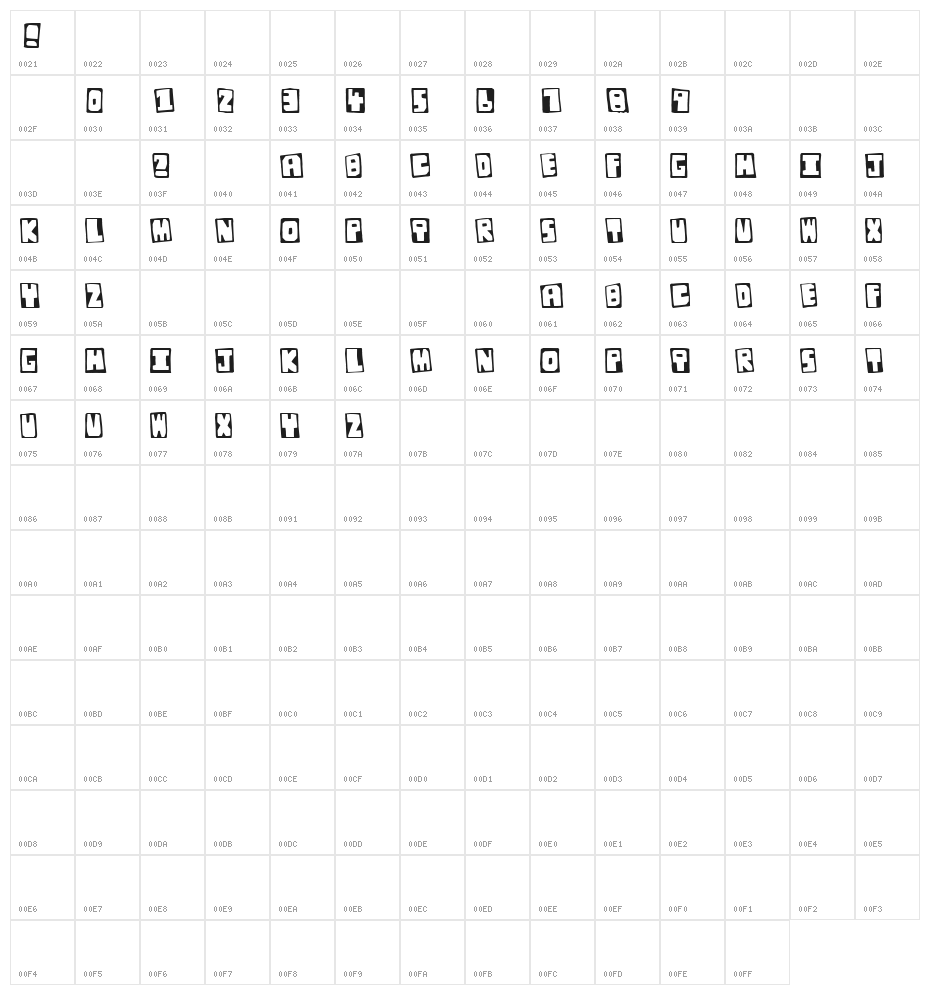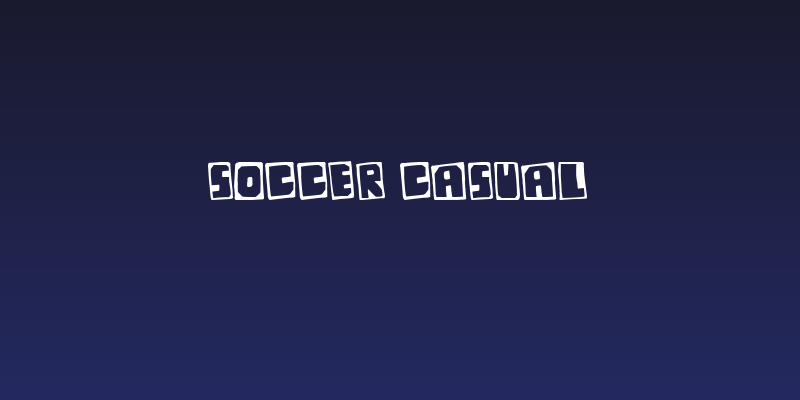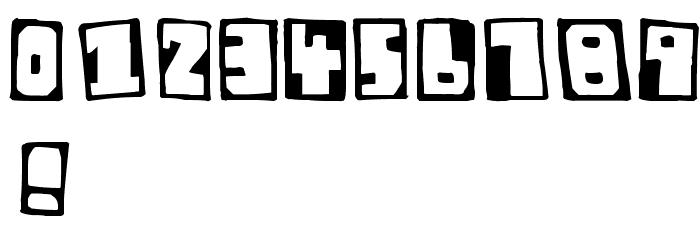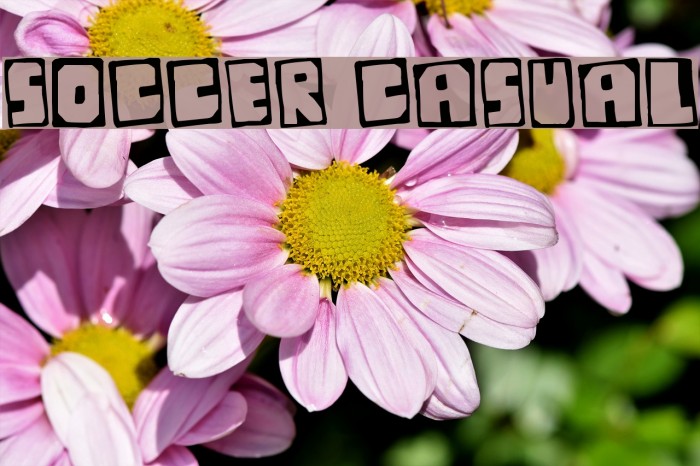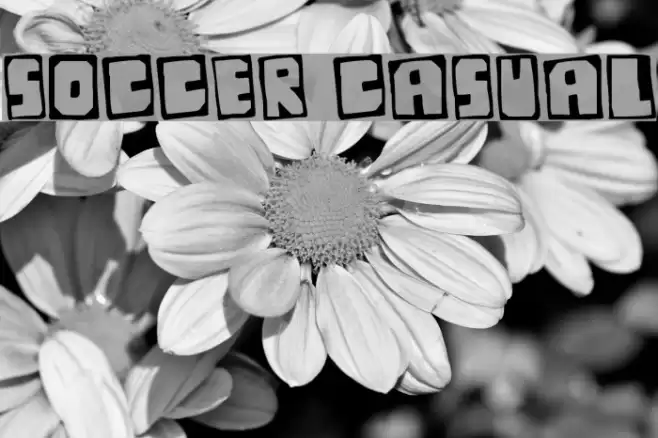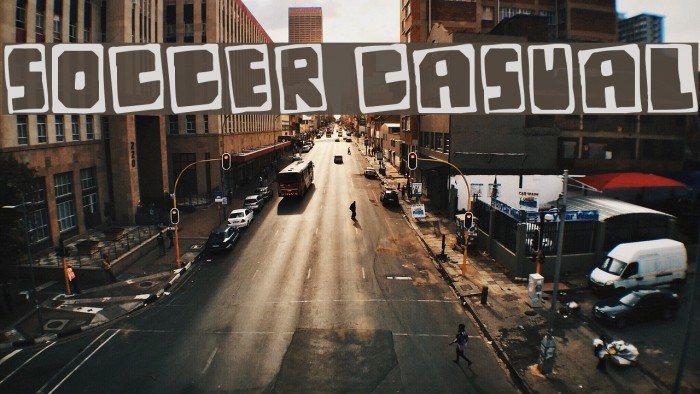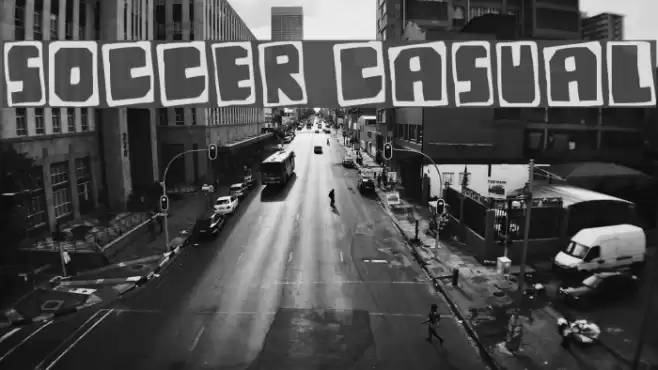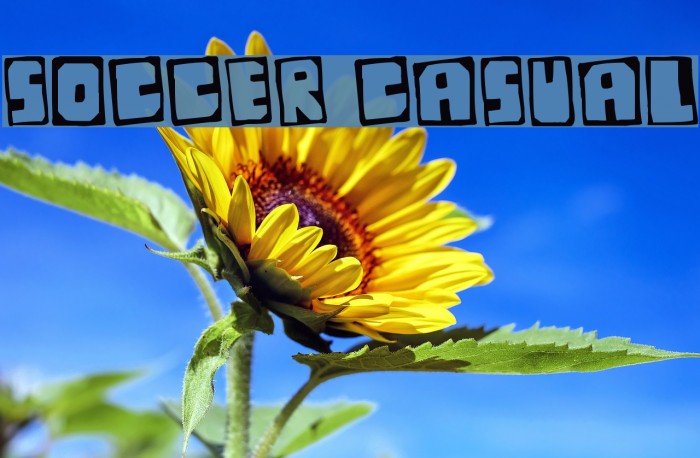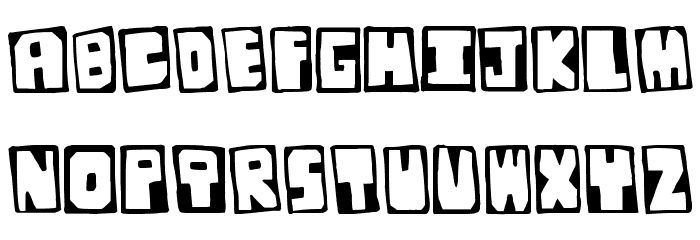
Soccer Casual Font
Soccer Casual Description
This font features a playful and bold style with each character enclosed in a square-like shape, giving it a casual and dynamic appearance. The letters are uppercase and lowercase, with a consistent thickness that creates a uniform look. The numbers and exclamation mark follow the same design principle, maintaining the playful aesthetic. The font's unique style makes it stand out, with a hand-drawn feel that adds a touch of creativity and fun. It's perfect for projects that require a lively and informal tone.
| Overall Style | Casual, Playful |
| Use Case | Headlines, Posters, Branding |
| Proposed Projects | Ideal for children's books, comic strips, playful branding, and casual event posters. |